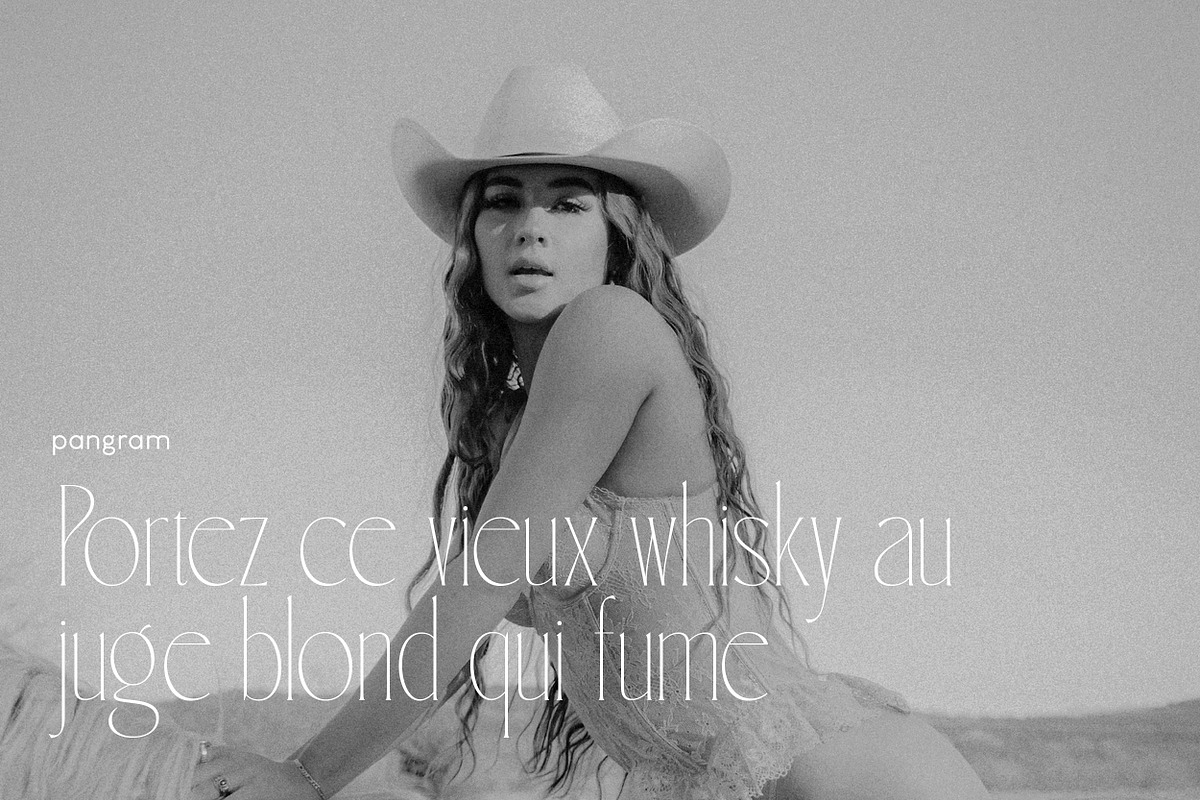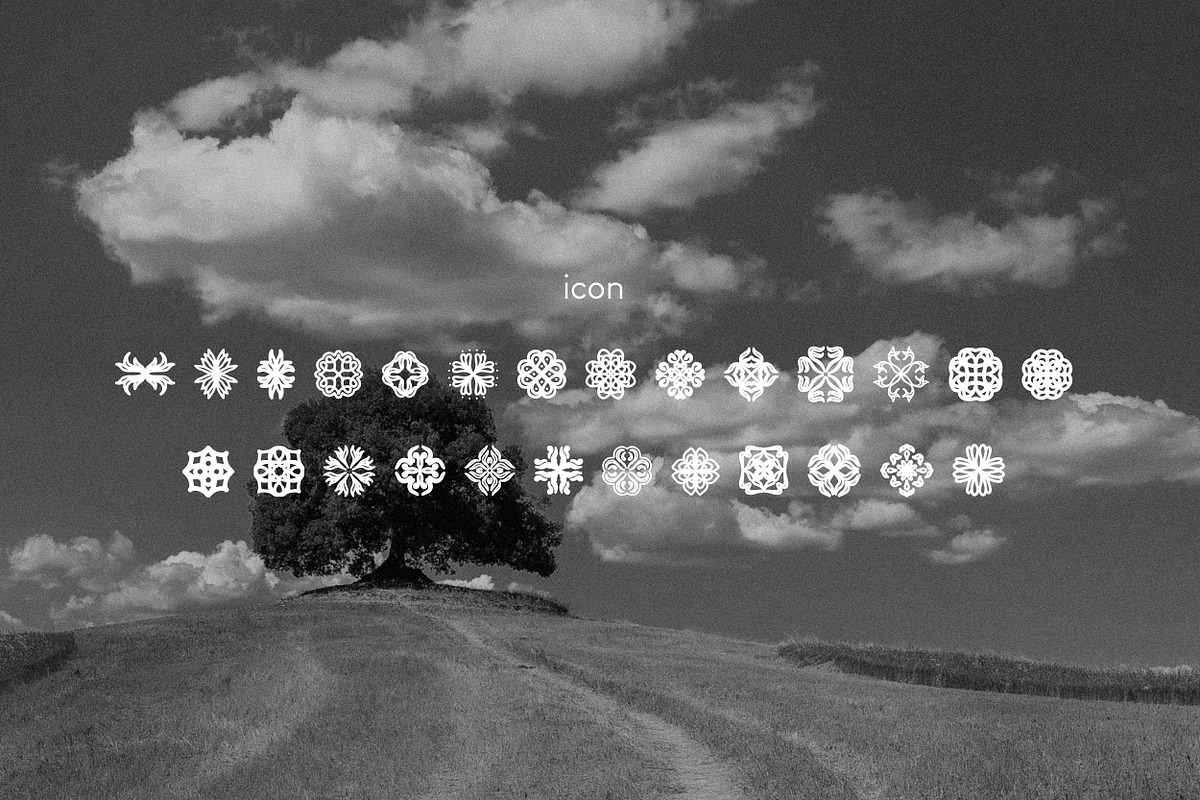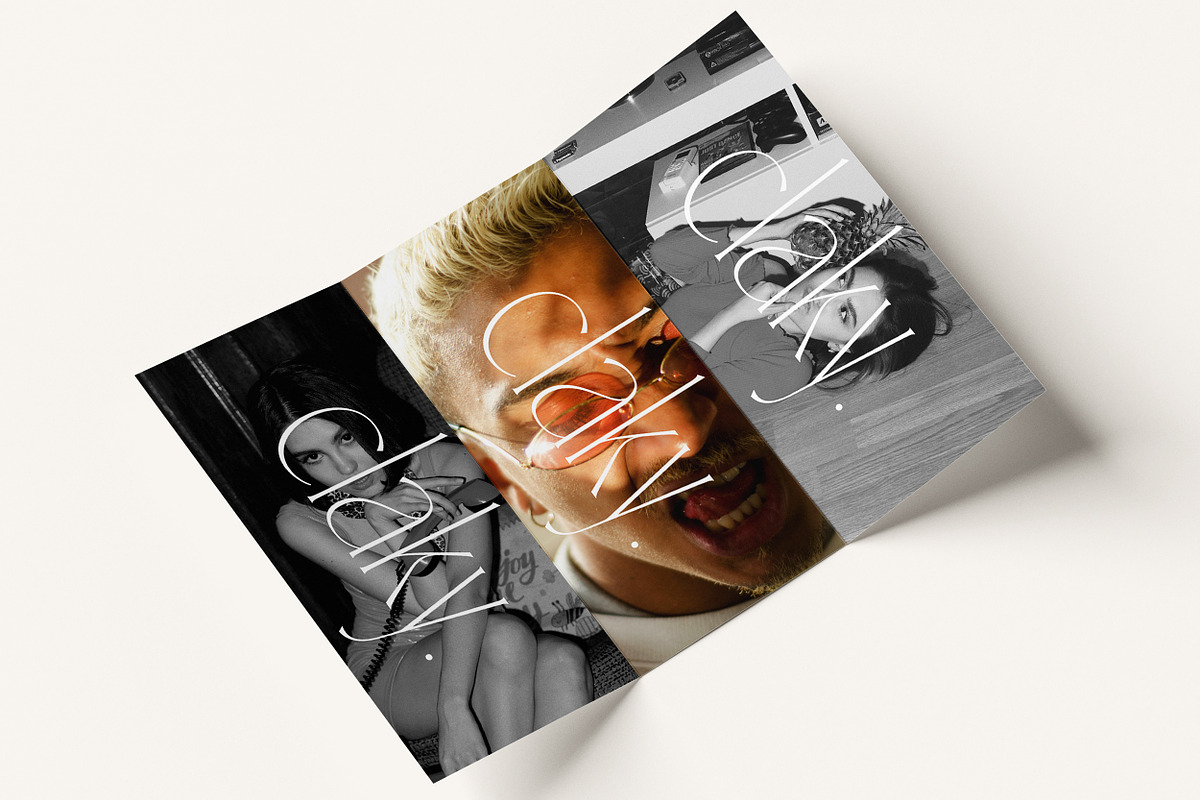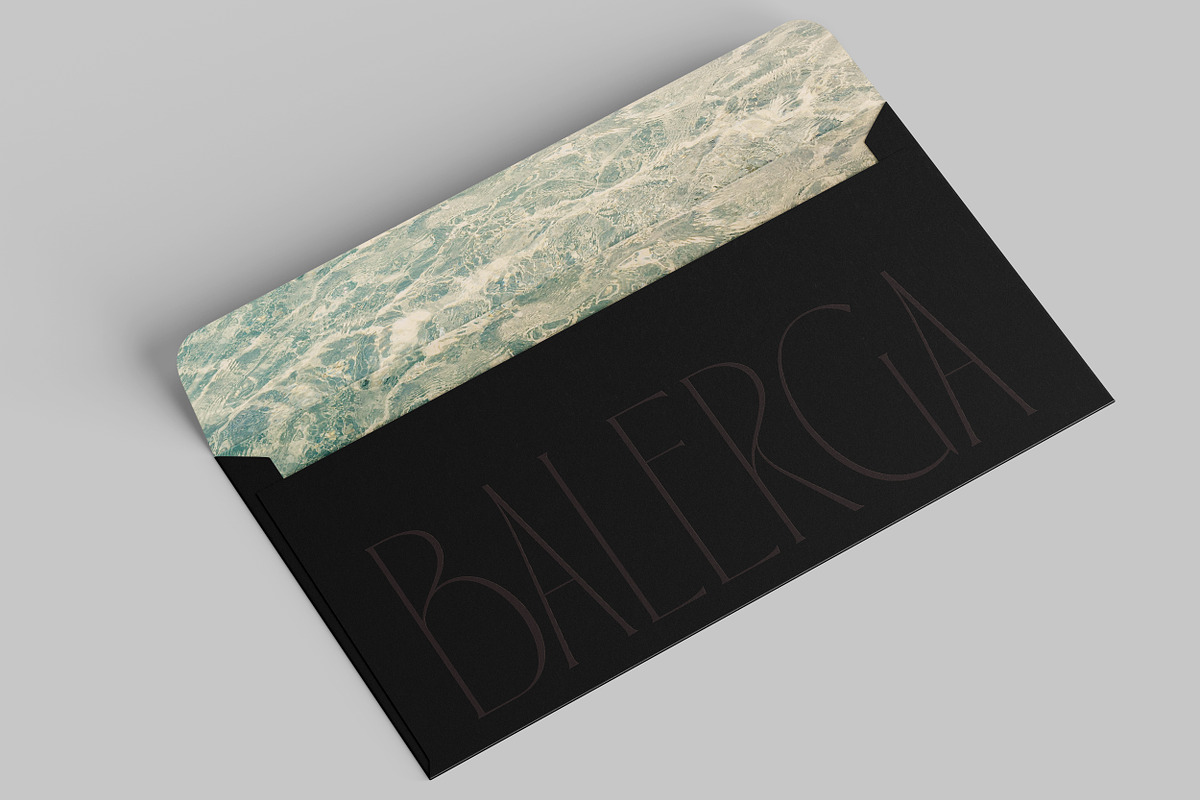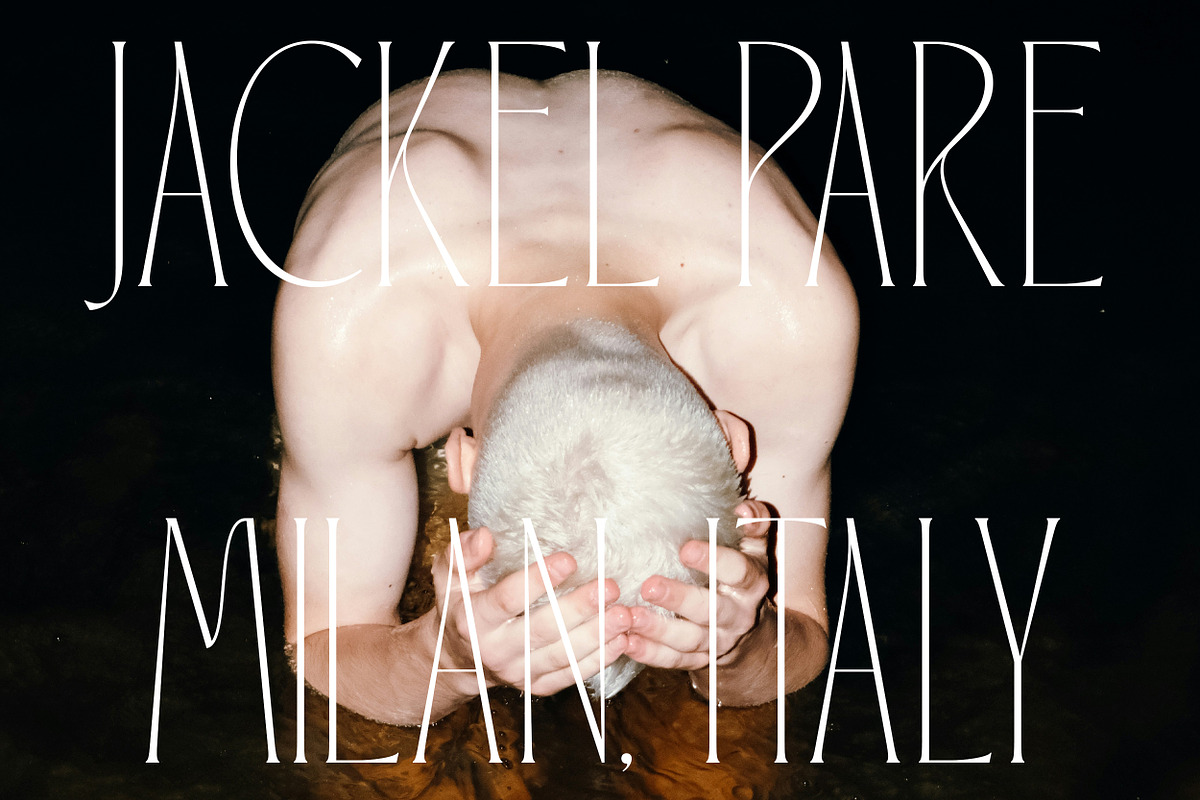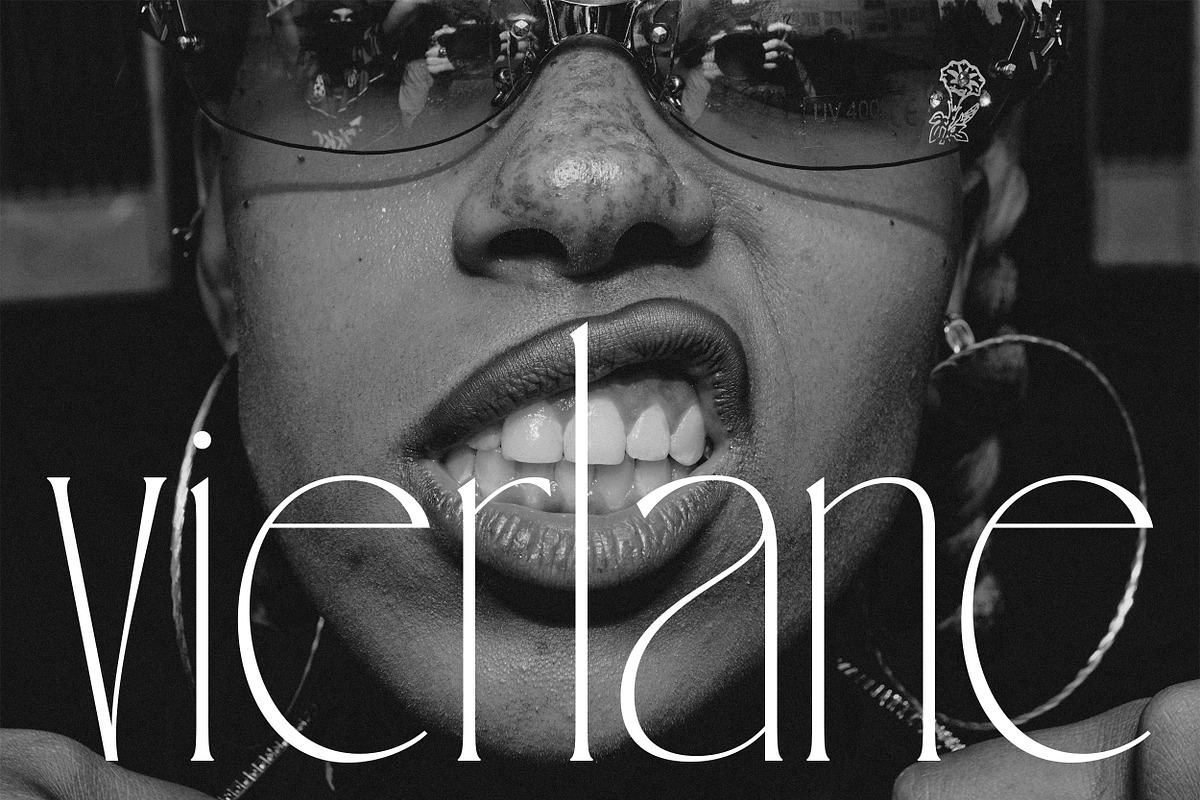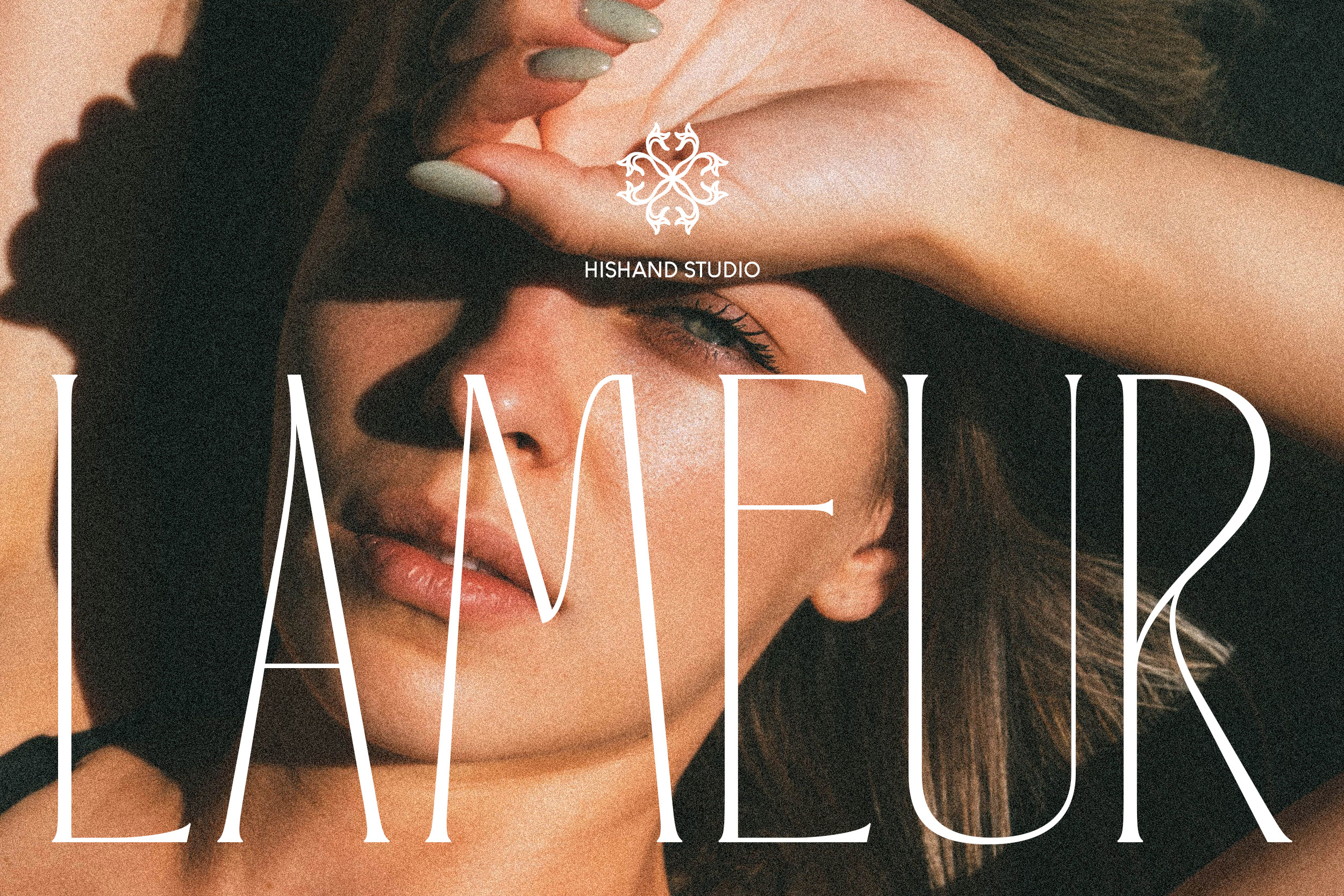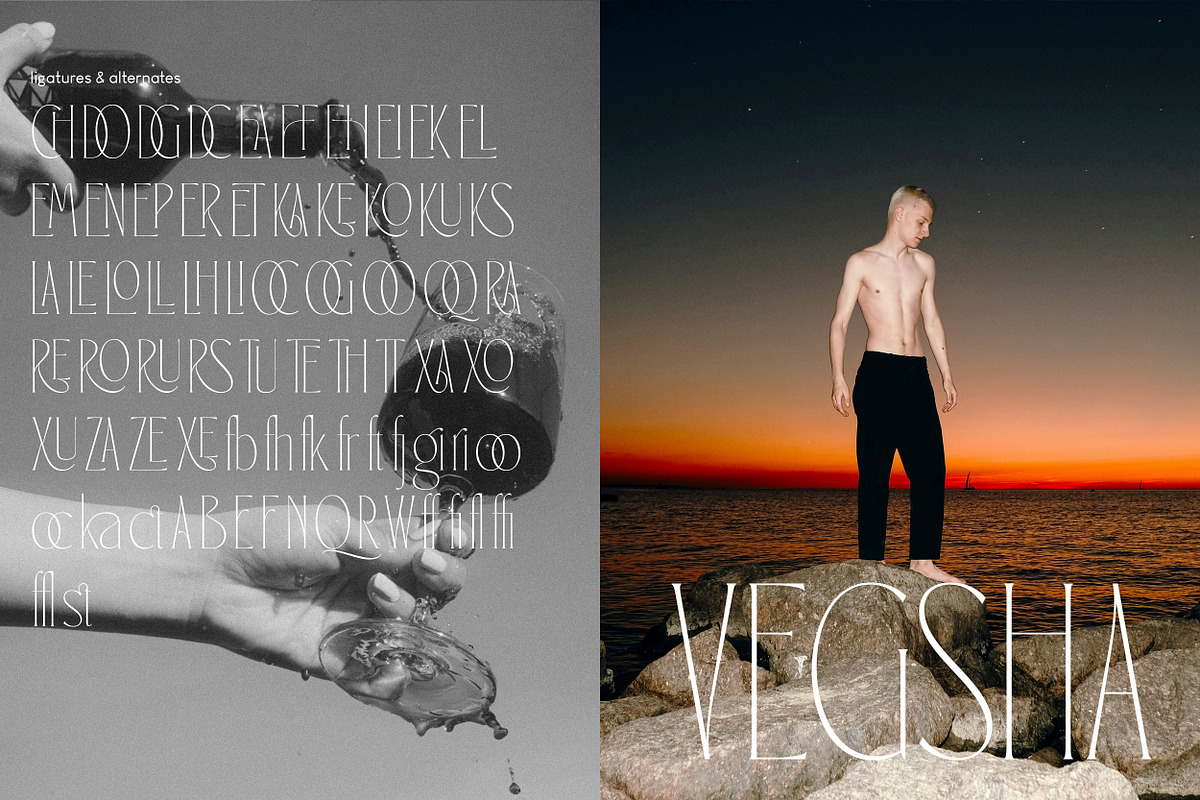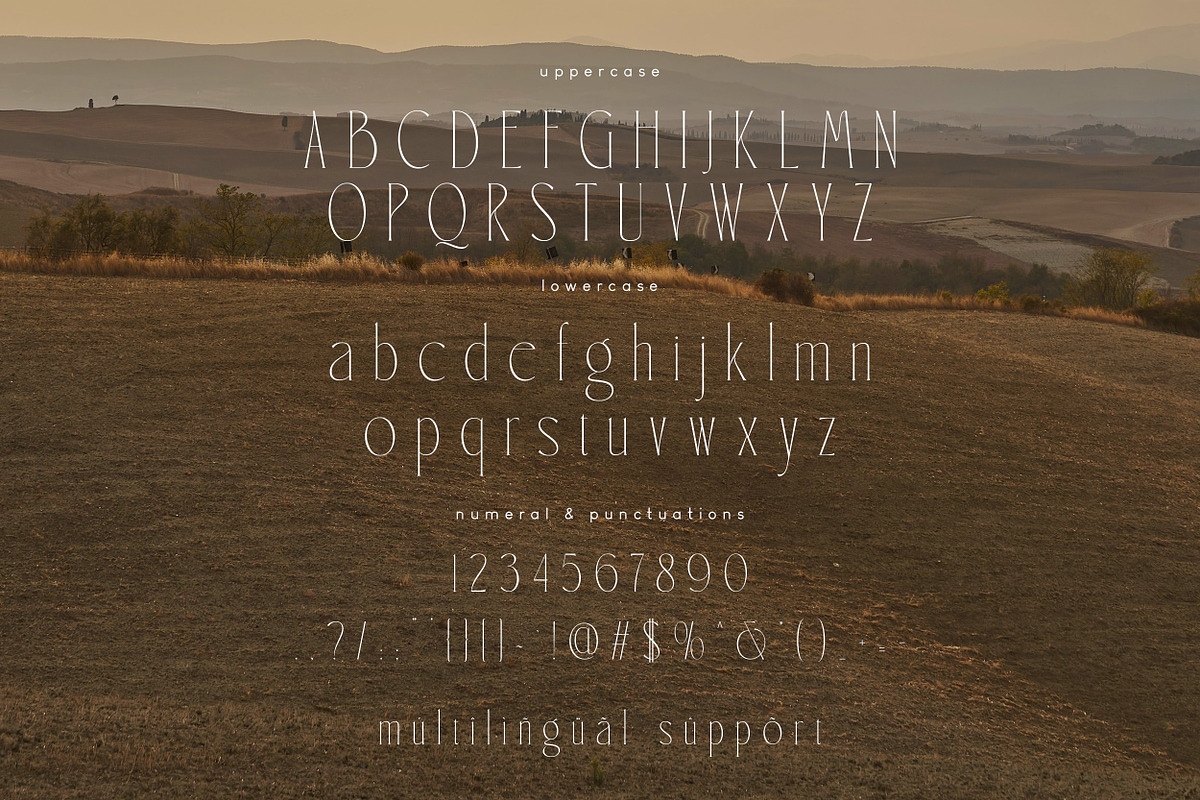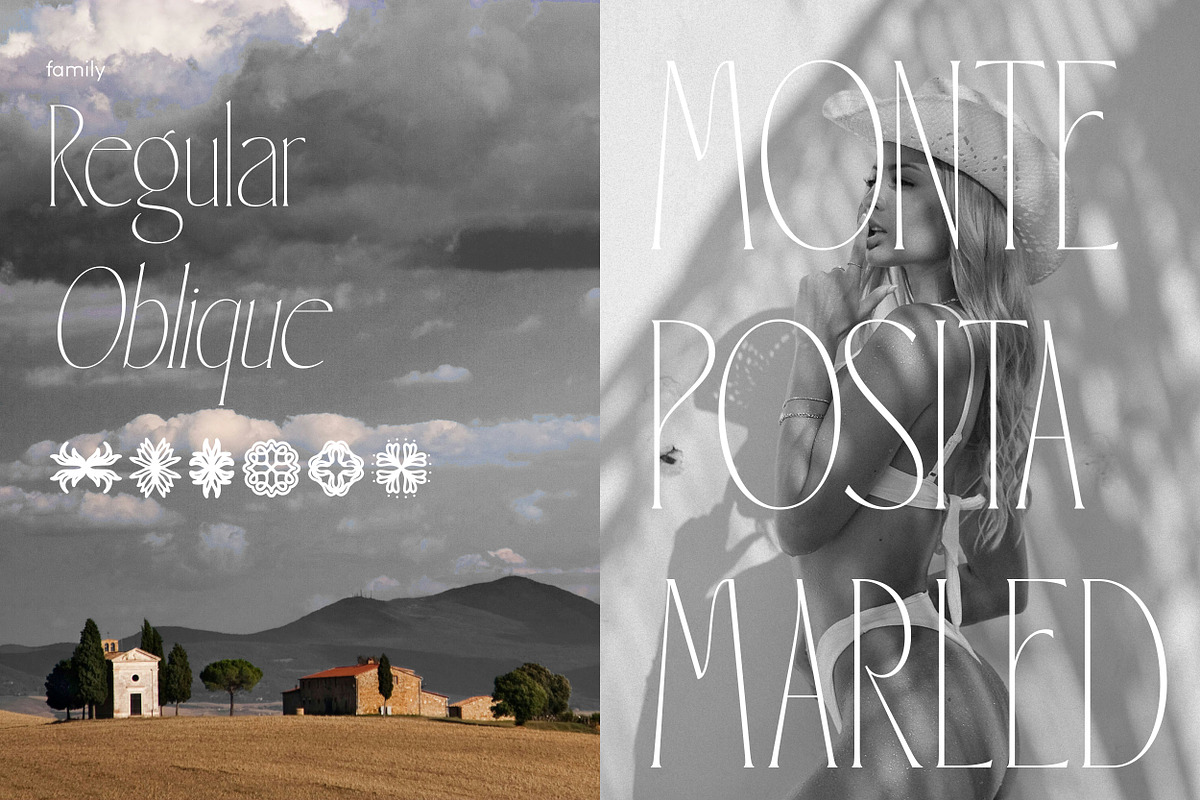
Lameur Thin Serif Display Font
Lameur is an elegant thin serif display typeface designed for luxury and high fashion branding. Its tall, slender letterforms carry graceful proportions and refined stroke contrast, giving every word a sense of quiet sophistication. Inspired by the clean lines of couture design, Lameur brings a premium, editorial feel to any project it touches.
Perfect for luxury logos, fashion branding, magazine headers, wedding invitations, perfume packaging, and boutique product labels, Lameur transforms simple text into a statement of elegance. The delicate balance between thin strokes and tall x height ensures strong visual presence even in minimal designs, while maintaining clarity and readability at display sizes.
From building a high end brand identity to crafting an invitation that needs to feel timeless, Lameur delivers the beauty and refinement your design deserves. Complete with :
ligatures
alternates
regular
oblique
icon
kerning
multilingual support